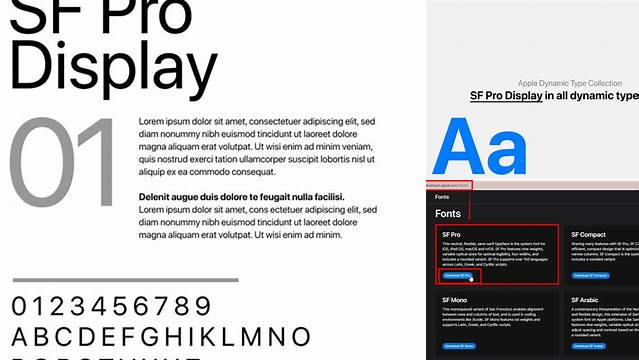
SF Pro Display Font, guys, is a real gem in the design world, especially if you're vibing with Figma. Finding the right font can seriously make or break your design, right? Well, this guide is all about getting you hooked up with the SF Pro Display font for free, specifically for Figma. We'll dive into where you can snag it, how to install it, and even some cool tips on using it to level up your designs. So, let's jump in and get your design game strong!
SF Pro Display Font: Why Designers are Obsessed
SF Pro Display Font is a sleek, modern typeface that's become a go-to for designers. Its clean lines and readability make it perfect for various projects, from website designs to mobile app interfaces. The versatility of SF Pro Display is one of the main reasons it's so popular. Whether you're working on a minimalist design or something with a bit more flair, this font can adapt beautifully. Designers love it because it's easy on the eyes and lends a professional feel to any project. It's not just about aesthetics, either; the font's legibility is superb, ensuring that your audience can easily grasp your message. The different weights and styles available in the SF Pro Display family, like bold, italic, and various weights, give you the flexibility to create a visually interesting and engaging design. Plus, it has a certain cool factor. It's the kind of font that subtly elevates your design, making it look polished and modern without screaming for attention. It's been used by tech giants and startups alike, which means it's trusted and respected in the design community. Using SF Pro Display shows that you're in tune with current design trends, which can only improve your image as a designer. You also get to harness a typeface that is specifically designed for screens, meaning it’s optimized for readability on digital interfaces. Ultimately, it's a powerhouse font that helps you communicate effectively while keeping your designs looking fresh and modern.
SF Pro Display Alternatives: Exploring Similar Fonts
If you're striking out on finding a free download of SF Pro Display, or maybe you want to explore some different styles, don't stress. There are some awesome alternatives out there that can give you a similar vibe. For instance, you could check out Roboto, a font created by Google. It's designed for screens, and it's super legible, making it great for apps and websites. It has a clean, modern look that's quite similar to SF Pro Display. Another good option is Open Sans, which is also a Google font. It's known for its versatility and readability, and you can use it for many different kinds of projects. It has a friendly appearance that goes well with almost any design. Then there’s Montserrat, which has a geometric design and a bold feel. It’s perfect if you want something with a bit more personality than SF Pro Display, but it still manages to remain clean and readable. If you are after something more like the minimalist style of SF Pro Display, you can check out Lato. Lato is known for its simple, yet professional look, which works well in both headings and body text. Also, be sure to check out the fonts available within Figma itself. Figma has a built-in font library, so you might find a font that fits your needs right there. Some of these alternatives will look great, while others may have a slightly different style. However, with a little bit of exploration, you’ll find something that looks just right for your specific project. Some are available for free download. Some even come with a variety of weights and styles, just like SF Pro Display. You can also mix and match, and use one font for headings and another for body text to add some more depth to your design. Remember, finding the right font can be a bit of a treasure hunt, but it's worth the effort, as it can significantly affect your design.